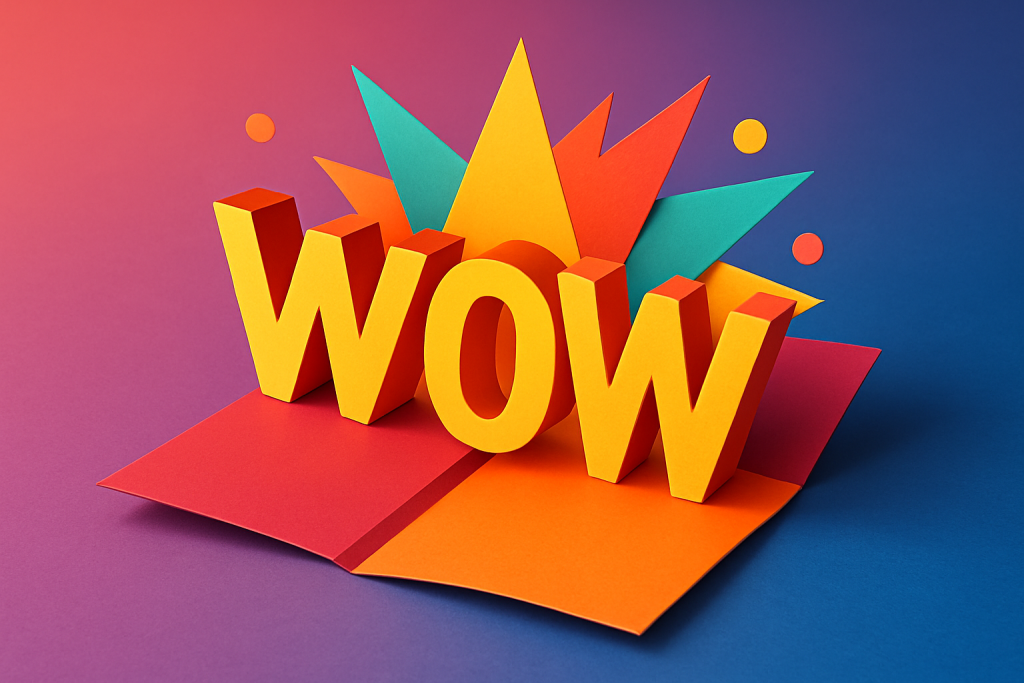
Paper engineering might sound like something that requires a PhD and a blueprint… but really, it’s just folding paper in creative ways. And when you combine that with smart typography? You get cards, posters, and paper displays that are practically alive with movement.
Why Pop-Ups + Fonts Are a Match Made in Craft Heaven
-
They surprise and delight. Regular text says, âHi.â Pop-up text screams, âHEY THERE, LOOK AT ME!â
-
Dimensional storytelling. Letters can tell a story not just with their meaning but with how they emerge and unfold.
-
Perfect for cards and keepsakes. Nothing says âI love youâ like hand-crafted paper typography jumping out at your face.
-
Creative challenge. Youâll never look at a piece of cardstock the same way again.
-
đ Project 1: Pop-Up Name Card
Perfect for personalized gifts, desk decor, or your future Etsy empire.
Steps:
-
Choose a bold, geometric font (like Bebas Neue, Impact, or Oswald).
-
Print the name or word large on a folded sheet of cardstock.
-
Use a craft knife to carefully cut the tops and bottoms of each letter, keeping the sides attached.
-
Score a fold line beneath each letter, and gently push them out from the inside.
-
Add contrast by backing the letters with colored or patterned paper.
Bonus flair: Add embellishments like stars, hearts, or a pop-up border.
âď¸ Project 2: Typography Explosion Card
No, not a literal explosionâjust the feeling of one.
Steps:
-
Start with a tri-fold card.
-
Cut and fold tabs on the interior to build platforms for words or letters.
-
Create cut-out letters from cardstock or print and trace your favorite fonts.
-
Mount letters on the pop-up tabs so that they âexplodeâ outward when the card opens.
-
Add motion lines or comic-book-style accents like POW, WOW, or LOVE using hand-lettering.
Pro tip: Fonts with chunky serifs (like Rockwell) give that fun, comic vibe.
đ§ Project 3: Layered Letter Shadow Box
Letâs add some drama and depth.
How-To:
-
Choose a short word like âHOPEâ or âWOWZA.â
-
Print it in a large size using a bold, clean font (Gotham Bold, anyone?).
-
Cut the word out of 4â5 sheets of cardstock.
-
Stack the layers with foam adhesive dots between each, aligning the letters.
-
Place the layered cut-out in a shadow box for instant 3D wow-factor.
Color tip: Try an ombrĂŠ gradient for an eye-catching visual effect.
Typography Techniques to Try in Pop-Up Projects
-
Offset shadows: Create a layered effect with a slight color shift.
-
Outlined letters: Let light shine through to create paper silhouettes.
-
Negative space text: Cut the background instead of the letters for an elegant look.
-
Kinetic letters: Add pull-tabs to make letters swing or flip!